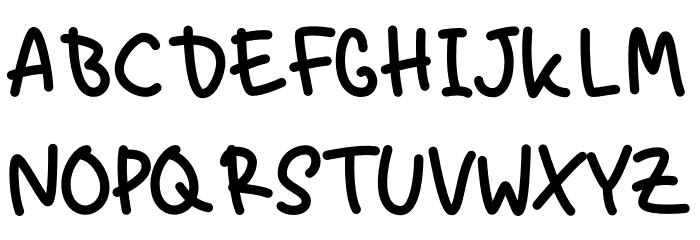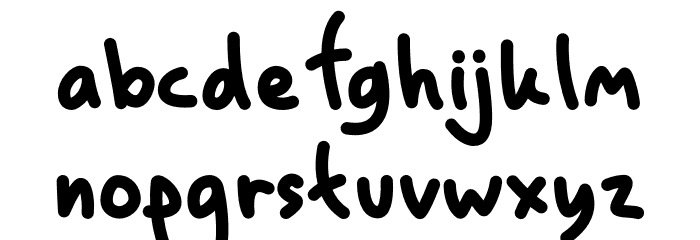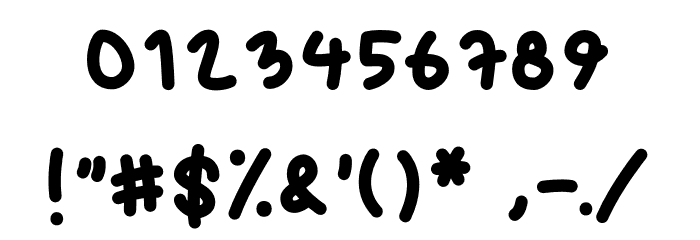
Stay Kids Font
This playful and whimsical font features a handwritten style that exudes a youthful and energetic vibe. The characters are rounded and slightly irregular, giving them a casual and friendly appearance. The uppercase and lowercase letters maintain a consistent style, with a slight tilt that adds to the informal feel. The numerals and special characters are equally playful, making this font ideal for projects that require a fun and approachable aesthetic. The overall design is simple yet effective, capturing the essence of childlike creativity and spontaneity.
A playful, handwritten font with a youthful and energetic vibe.
- Font: Stay Kids
- Proposed Projects: Ideal for children's books, educational materials, playful branding, and casual invitations.
- Category: Handwritten
- Overall Style: Playful
- Use Case: Headlines, Logos, Informal Text